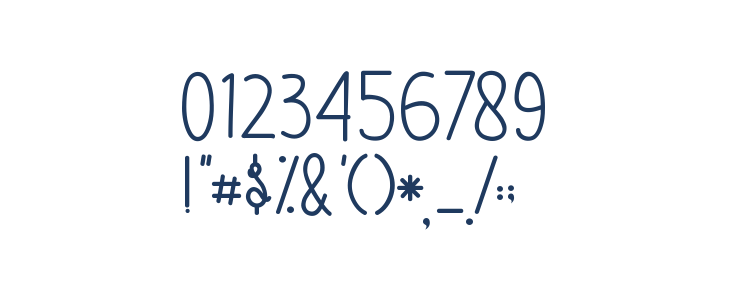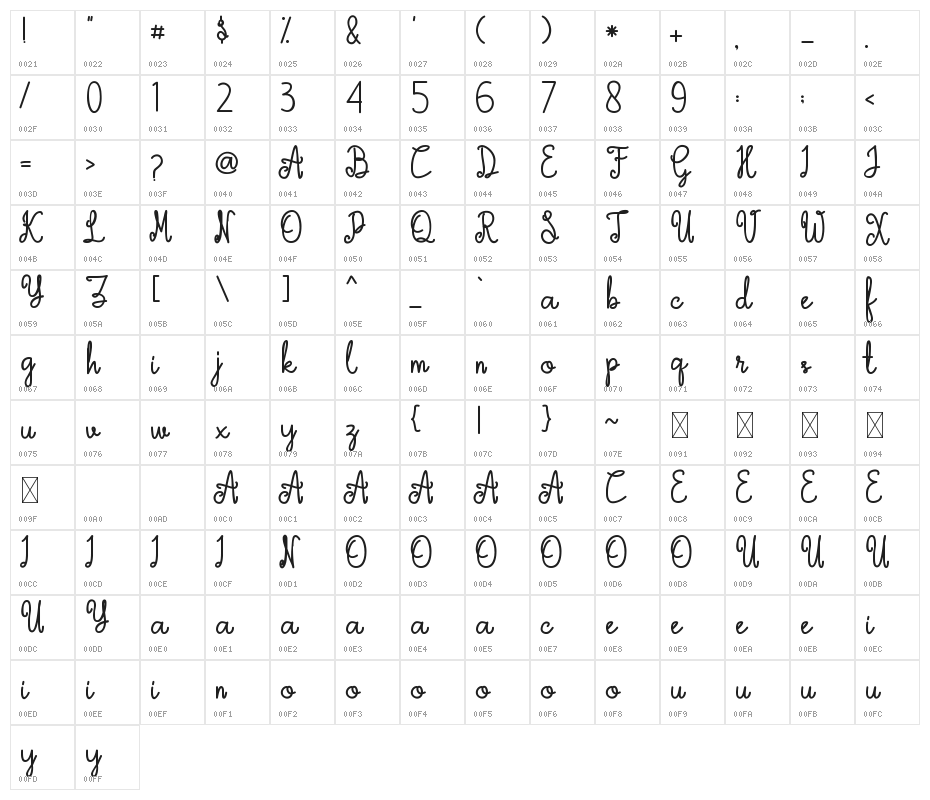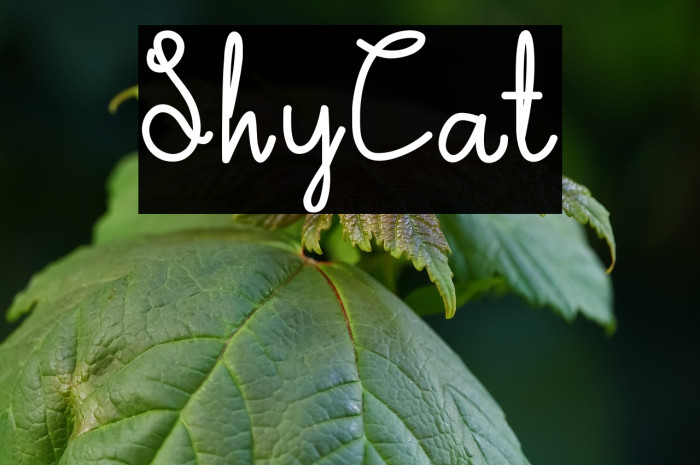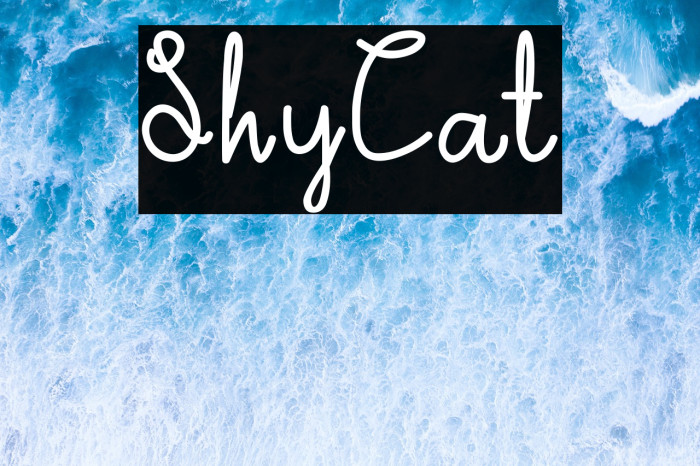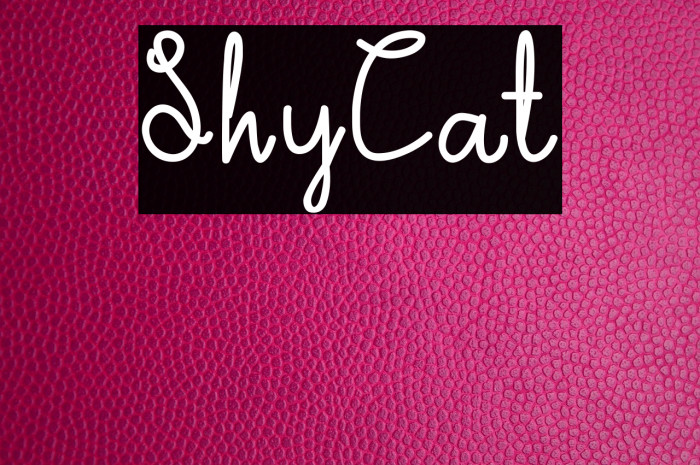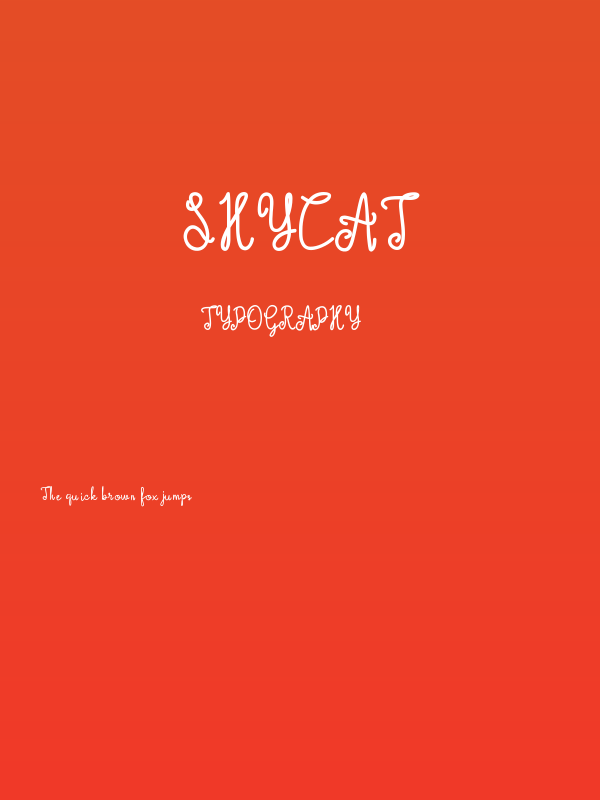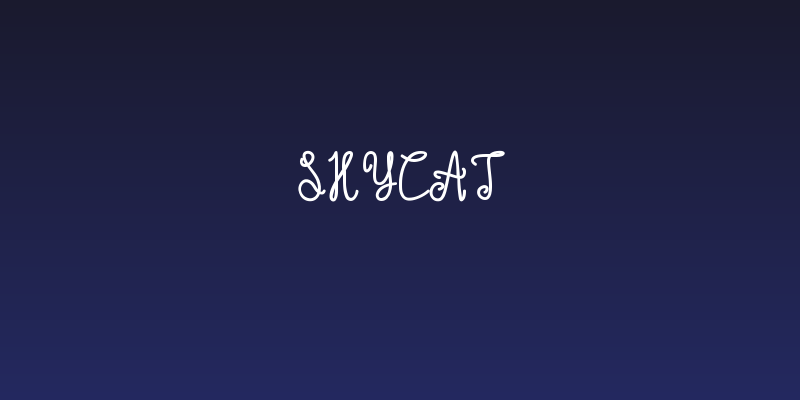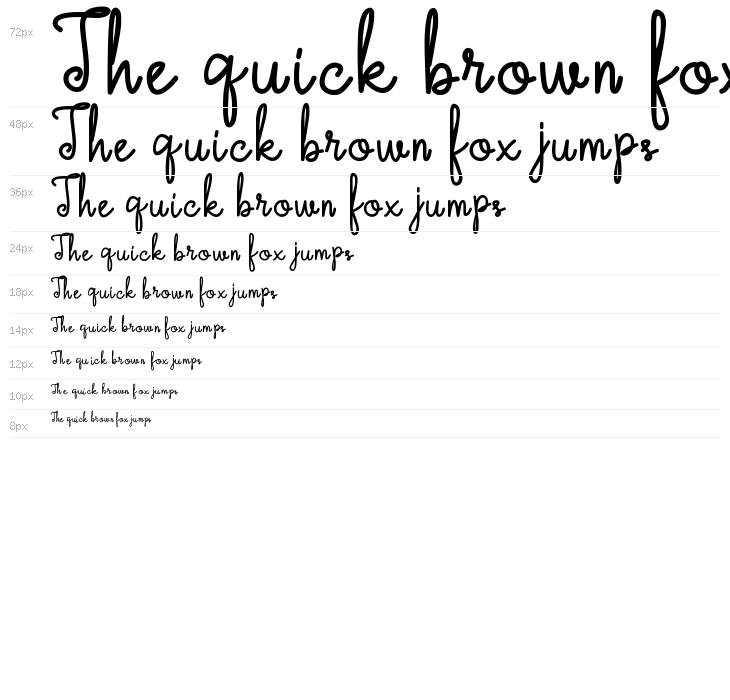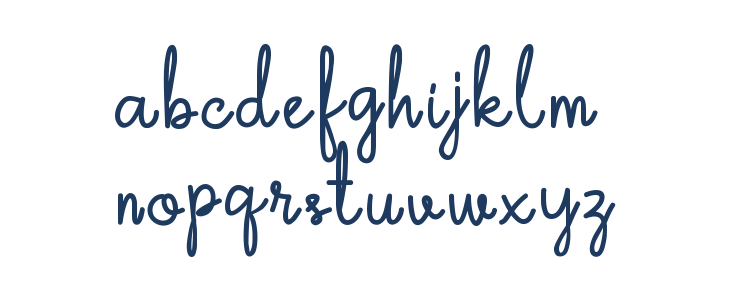
ShyCat Font
ShyCat Description
This playful and whimsical font features a handwritten style with a charming, curly flair. Each letter is crafted with a unique loop or swirl, adding a sense of movement and personality. The uppercase letters are bold and expressive, while the lowercase letters maintain a consistent flow, making it ideal for creative projects. The numbers and special characters follow the same lively design, ensuring a cohesive look across all elements. This font's distinctive style is perfect for adding a touch of fun and creativity to any design.
| Use Case | Logos, Headlines, Creative projects |
| Proposed Projects | Ideal for greeting cards, children's books, playful branding, and creative invitations. |